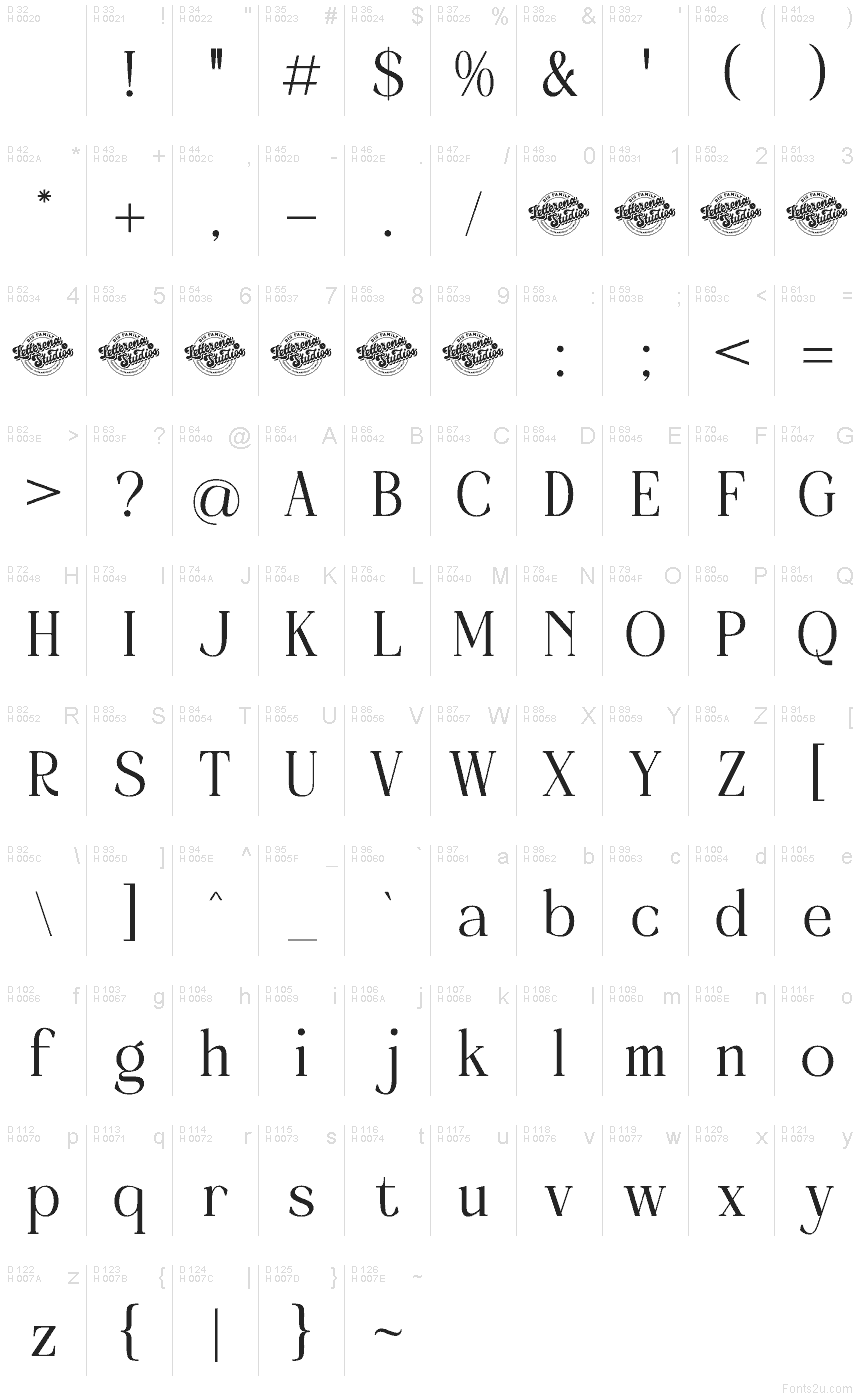
Gradeur DEMO VERSION
Gradeur font, designed by Storytype Studio, is the modern elegant expression of sophistication in typography. Inspired by refined classic style, this serif font distinguishes itself with smooth edges and well-balanced curves. It is professional and graceful, empowering designers to create timeless projects with its beauty.
With this free serif font, create luxury packaging, book covers, business cards, websites, product branding logos and labels. Gradeur takes magazines to a whole new level and allows those who use it to finally enjoy its aesthetic whenever it is used in signage designs or typography artwork.